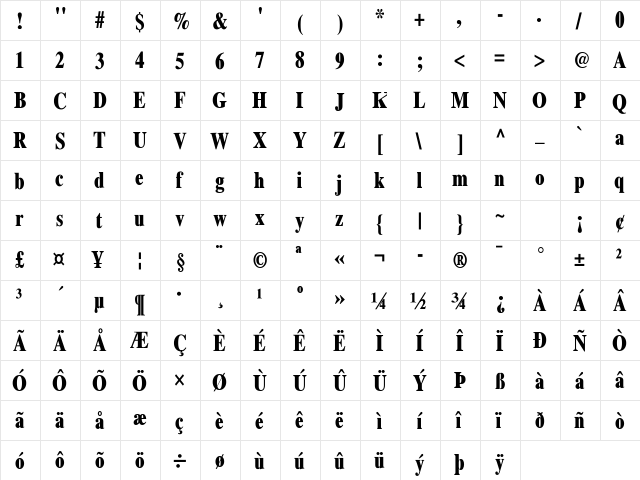
Xerox Serif Narrow Bold Font Preview
Design Context for Xerox Serif Narrow Typeface
Xerox Serif Narrow carries the refined structure of traditional serif typography, with bracketed terminals and considered proportions that communicate credibility and craft. Its bold stroke weight gives it real presence on the page. The condensed width makes it efficient for tight spaces without sacrificing legibility.
Pro Tip: Set Xerox Serif Narrow with slightly loose tracking in headlines to let each letterform's detail read clearly at display sizes.